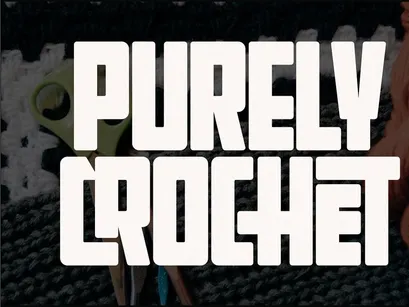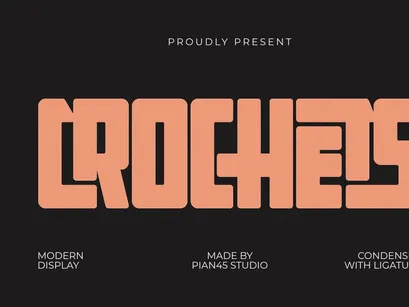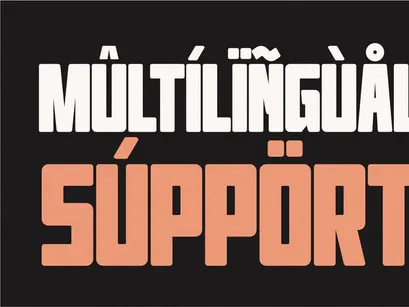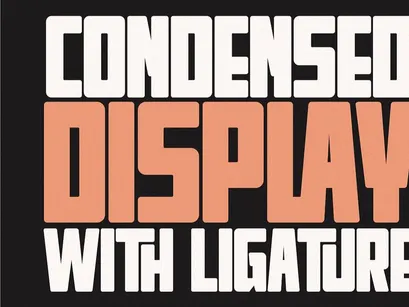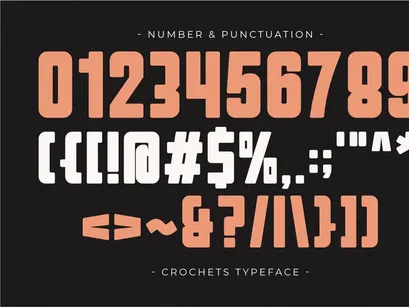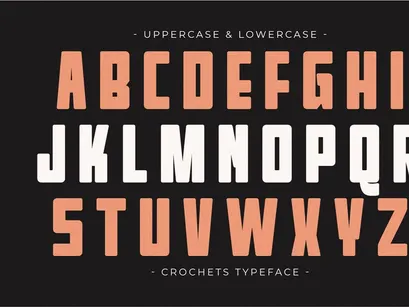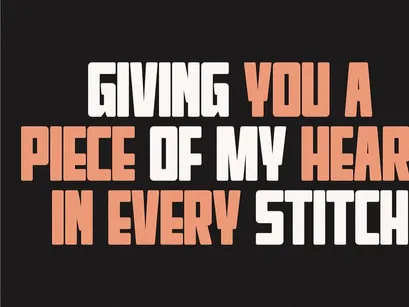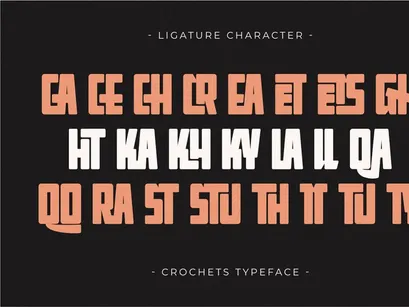
Crochets - Modern Display Font
Crochets is a high-impact Modern Condensed Display font meticulously crafted for professional branding and commanding visual presence. This bold typeface features a sleek, tall structure enhanced by unique, artistic ligatures that add a sophisticated flair to any layout. As a versatile Display font, it excels in luxury editorial designs, fashion logos, large-scale posters, and contemporary streetwear apparel. Its clean geometry and creative character connections ensure your headlines stand out with a professional, avant-garde aesthetic.